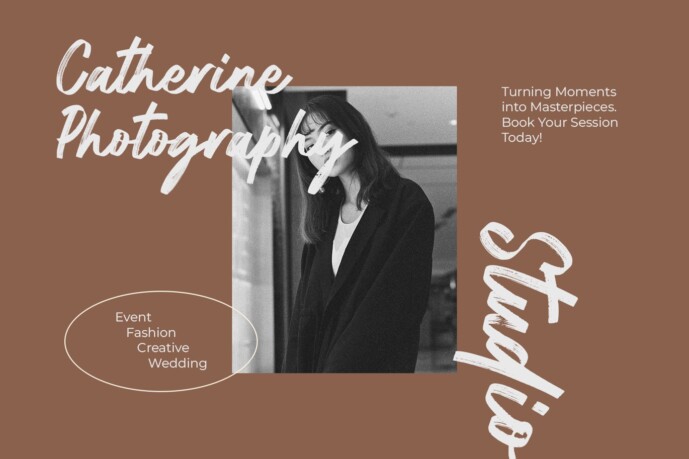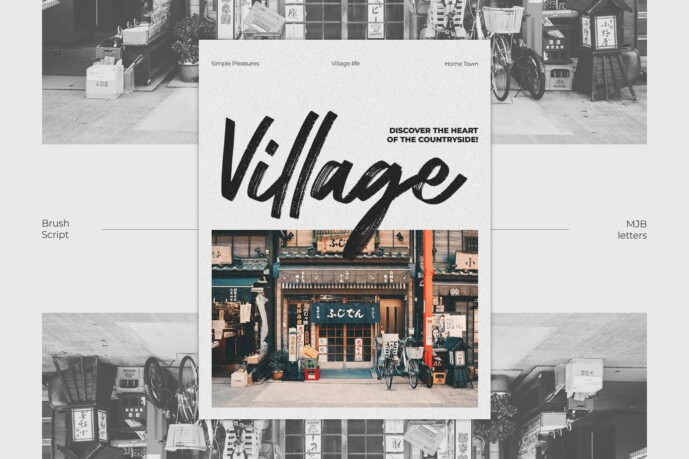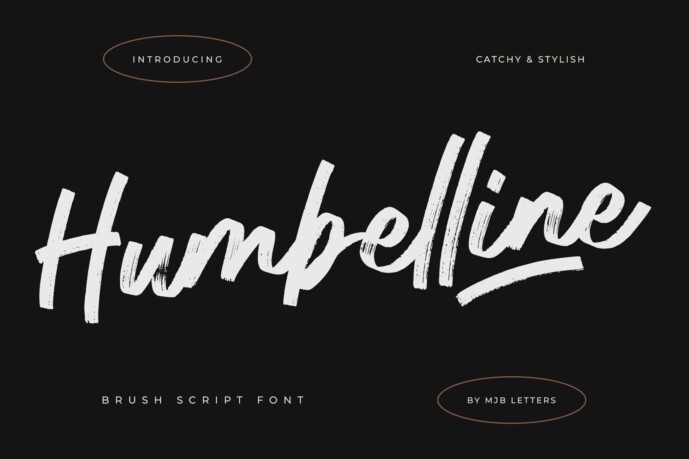
Humbelline Font
Humbelline Font is a textured typeface that combines a relaxed, modern aesthetic with a handcrafted touch. Its dynamic strokes and natural texture create a unique and eye-catching look, perfect for promotional materials, product advertising, and branding. Whether designing posters, creating brand identities, or creating engaging advertisements, Humbelline brings an artistic touch and contemporary style. This font brings your message to life with a personal and distinct vibe that is both trendy and approachable.